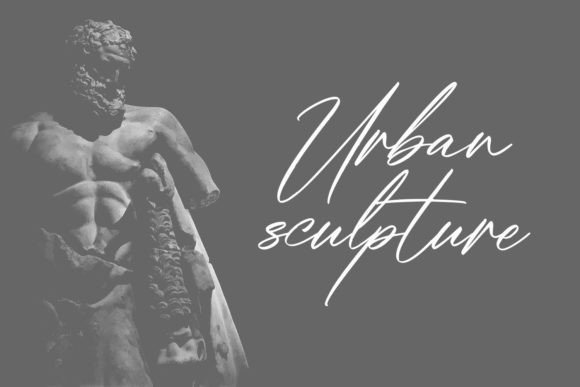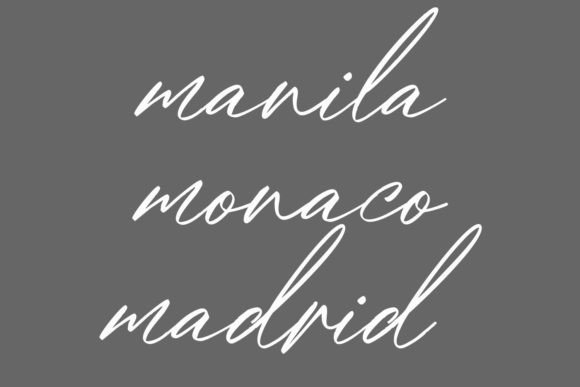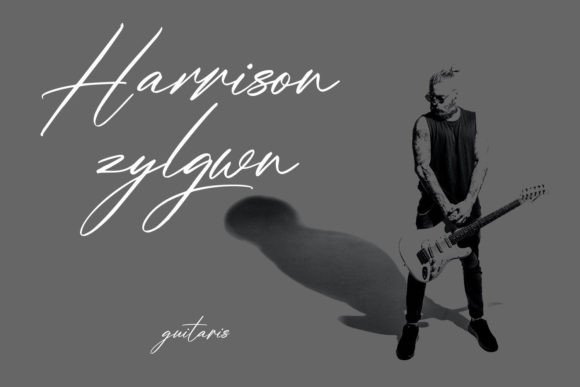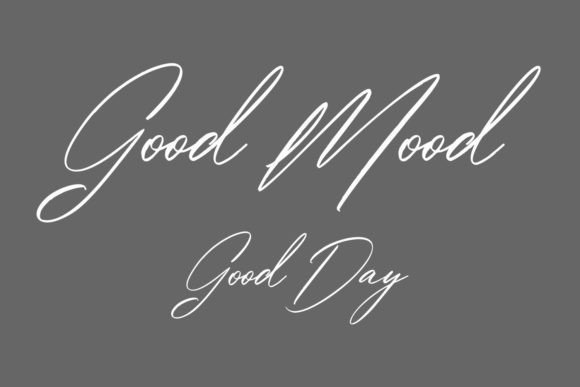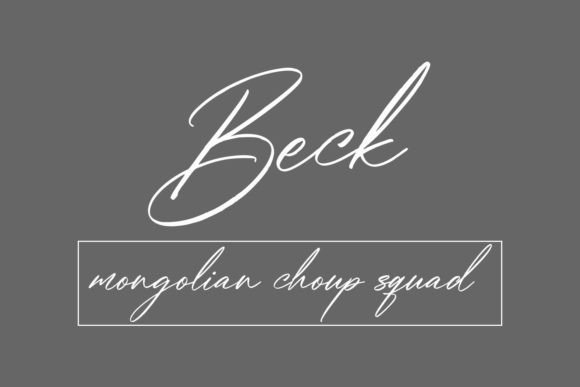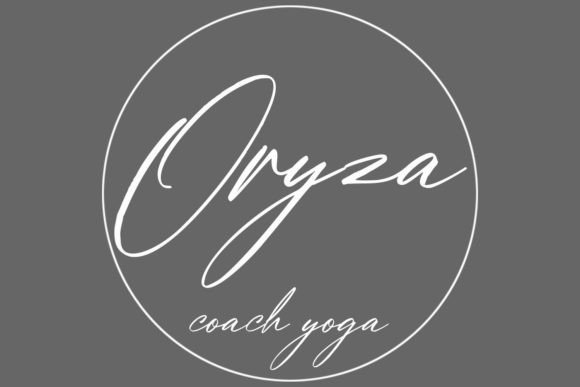
The Quest for the Perfect Font: How Flying Parrots Stole My Heart
Ah, the eternal struggle of finding the perfect font for a design project. I recall working on a logo design for a client’s eco-friendly brand, determined to create something that embodied their fun and adventurous spirit. After hours of scrolling through font libraries, I stumbled upon Flying Parrots – an expressive signature script font that instantly caught my attention. With its slanted rough stroke, fun character, and ligatures, I knew I had found the one. In this article, I’ll share my experience with Flying Parrots, its features, and how to make the most of this beautiful font.
An Honest Review of Flying Parrots
- ✨ Expressive and Fun: Flying Parrots has a unique personality that adds a touch of whimsy to any design.
- ✅ Versatile: Suitable for logo design, social media, movie titles, book titles, short text, and long text.
- ✅ Pairs well with sans or serif fonts: Perfect for secondary text, making it easy to create visual harmony.
- ✨ OpenType features: Offers ligatures, alternates, and stylistic sets to give you creative control.
While Flying Parrots is an amazing font, there are a few things to keep in mind:
- ⚠️ Legibility at small sizes: As with many script fonts, Flying Parrots may become difficult to read at very small sizes.
- 🤔 Overuse of ligatures: Be mindful of overusing ligatures, as they can make the text harder to read.
A Practical Guide to Using Flying Parrots
The Story Behind Flying Parrots
While the true story behind Flying Parrots remains a mystery, it’s easy to imagine a designer inspired by the vibrant colors and playful nature of tropical parrots. Perhaps the designer wanted to capture the carefree spirit of these beautiful birds in a font that would bring joy to designers and their clients.
Q: Is Flying Parrots suitable for body text?
A: While Flying Parrots is a beautiful font, it’s best suited for headings, titles, and short text. For body text, consider pairing it with a sans or serif font.